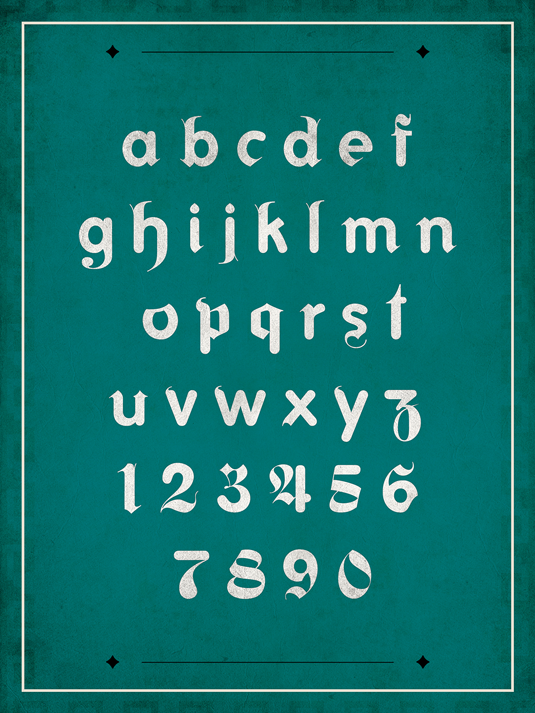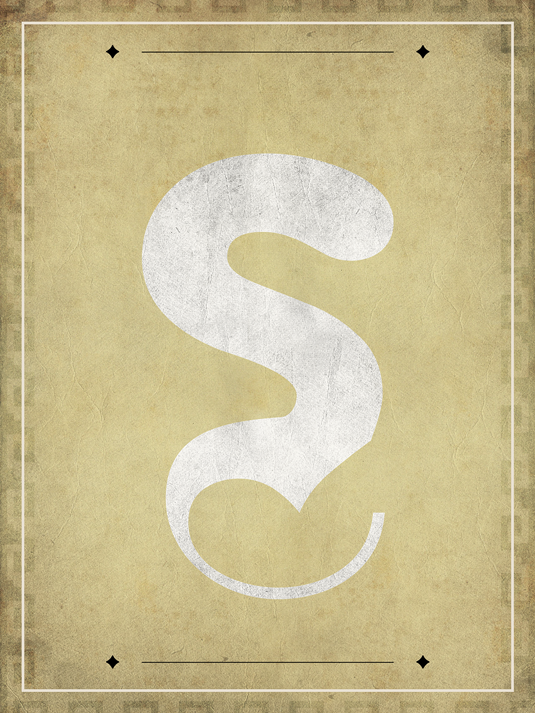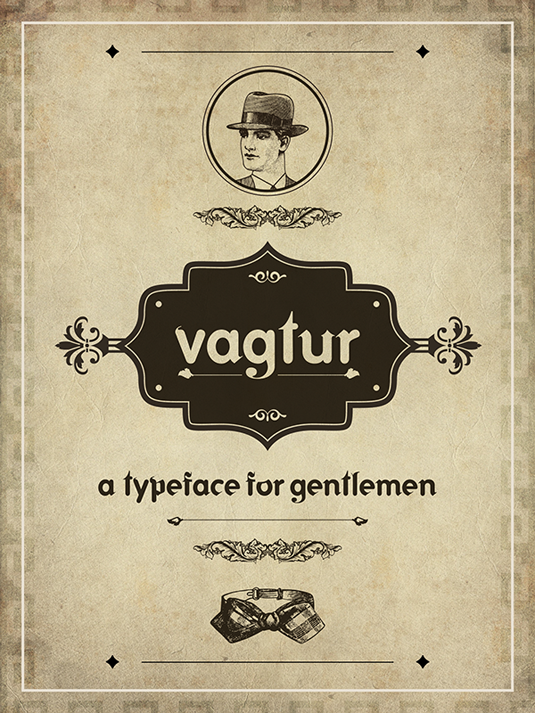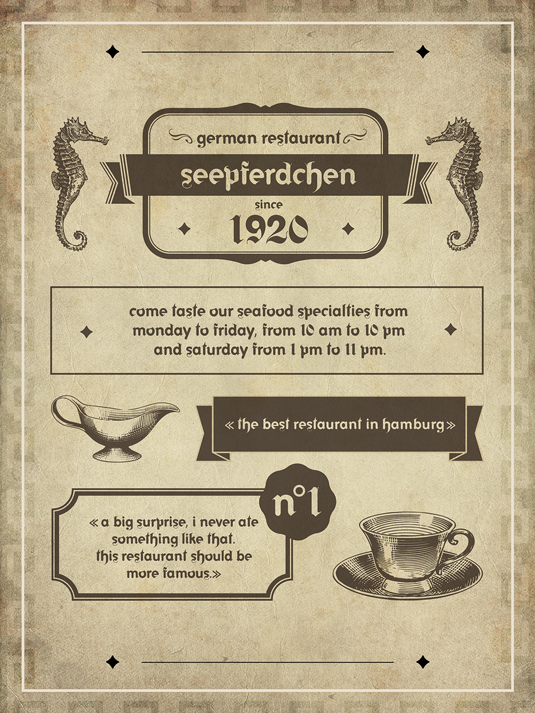
Font of the day: Vagtur
Vagtur by Simon Becker
Today's showcased typeface is Vagtur, a highly unusual font created by Simon Becker with support from Sabrina Ekecik. An old university project, Vagtur is a headline font that features a sharp contrast between rounded sans serif and calligraphic script. This is no coincidence, as it is a compound font made up of classic typefaces VAG and Fette Fraktur.